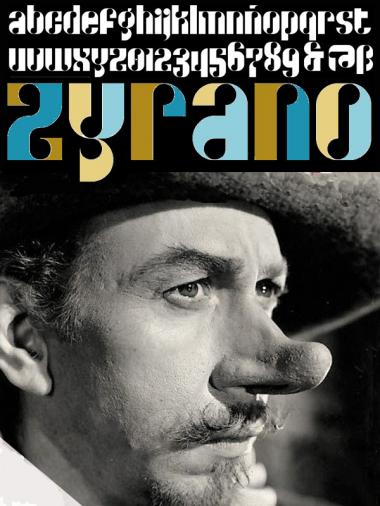
This is the true font under the balcony of my "zyrens eYe/FS"...
(Born to be poetically incorrect.)
Beautiful! I don't know which glyph I like best ... maybe all of them.
Another nice one, Elmoyenique. Similar to zyrens but less baroque. Could a basic version of zyrens be added as UC? The multicolour sample works well.
Beautiful solutions!
Very pretty!
Love this! You, architaraz, and four are like THE masters now. :) 10/10+fav
Groovy. Love it. Caps please?!!
UC added... But it works better at LC, IMHO.
very cool wooooork